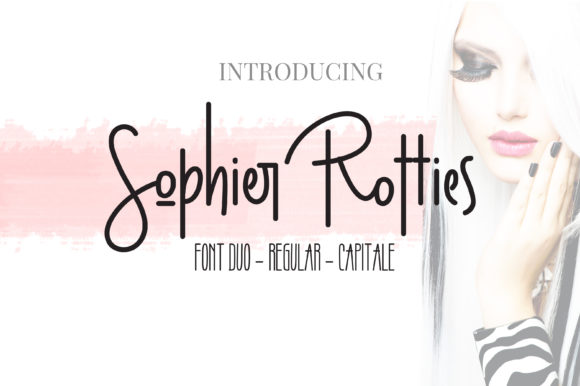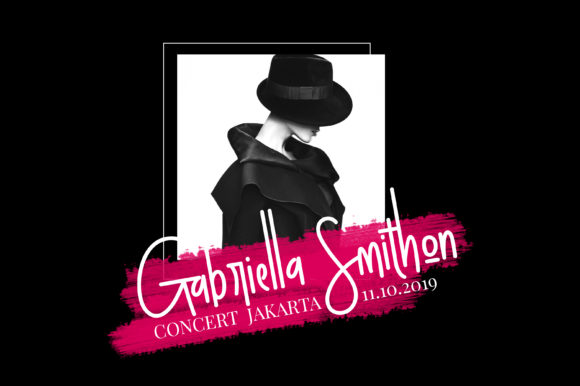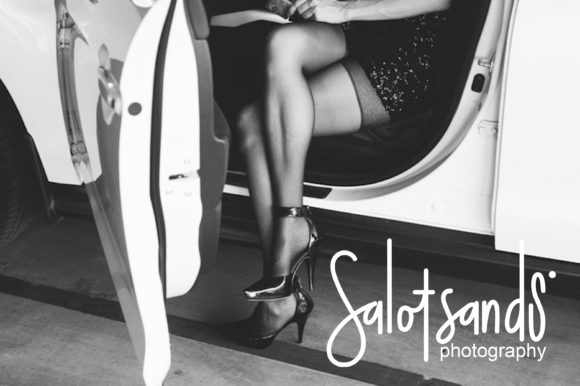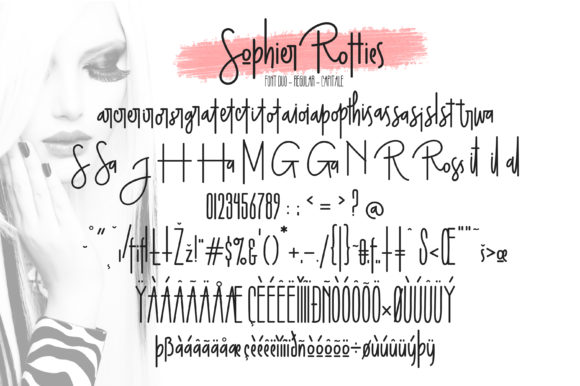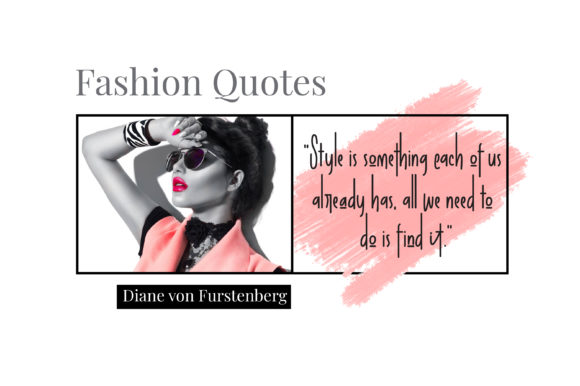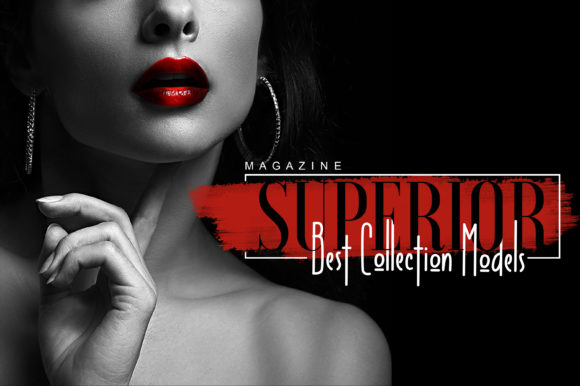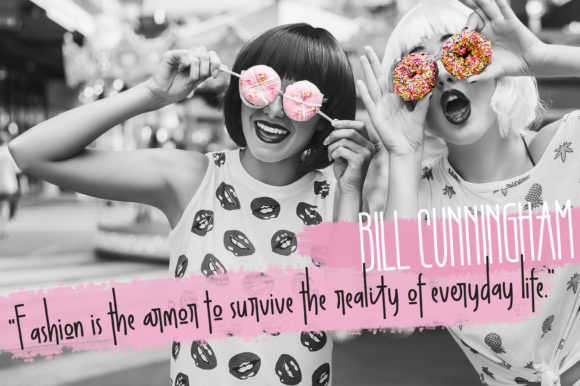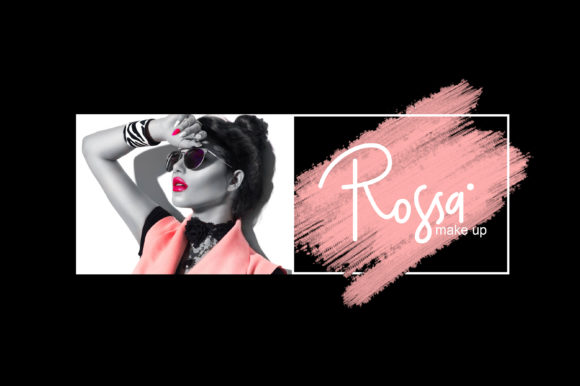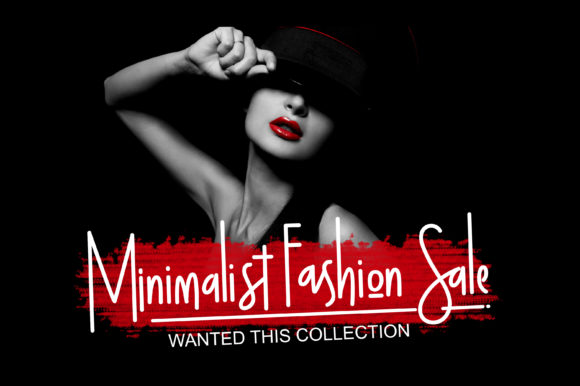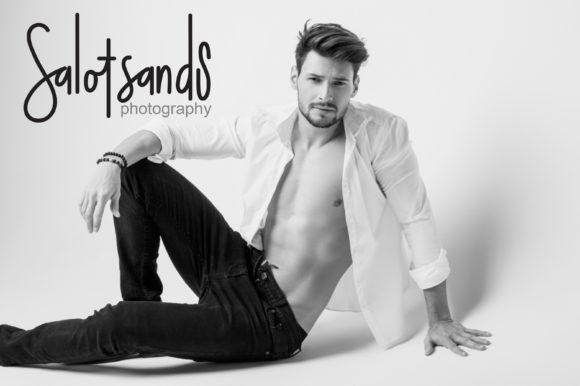
Sophier Rotties Duo Font
About Sophier Rotties Duo Font
Sophier Rotties Duo is a fun and bold font duo that will inspire you with is playful and authentic elements. Turn any design project into a stand out with this amazing font duo.